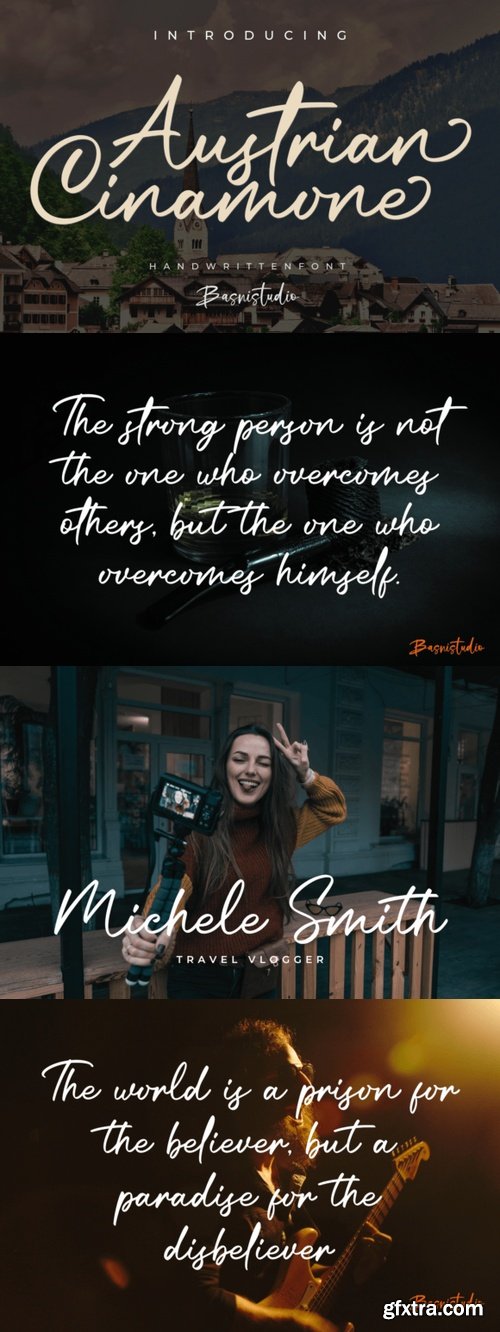
Austrian Cinamone Font
- Looking for a font that brings warmth, personality, and authenticity to your projects? Austrian Cinamone is a beautifully crafted handwritten typeface that adds a natural, personal touch to everything from branding and social media to invitations and packaging.